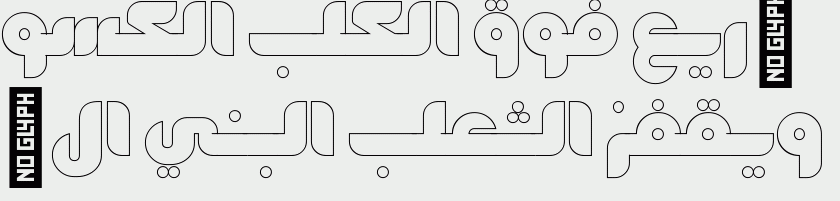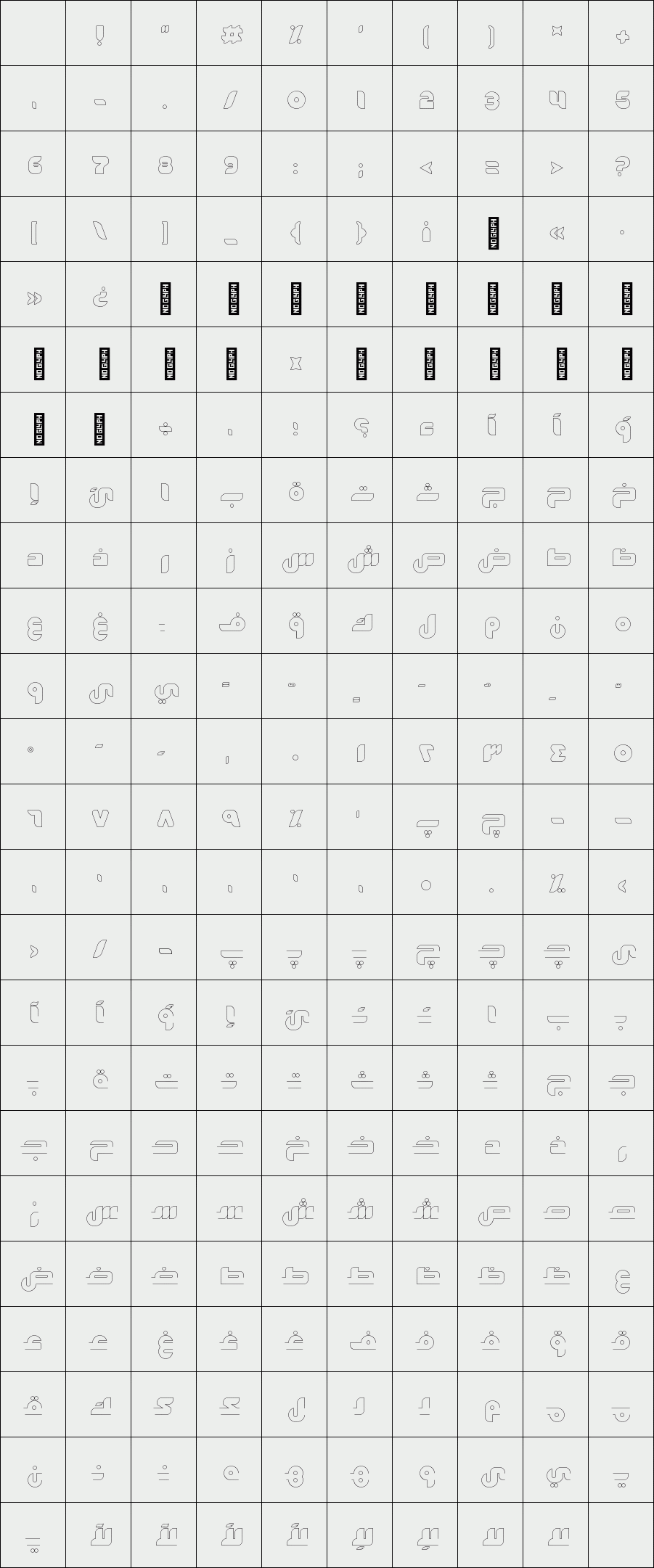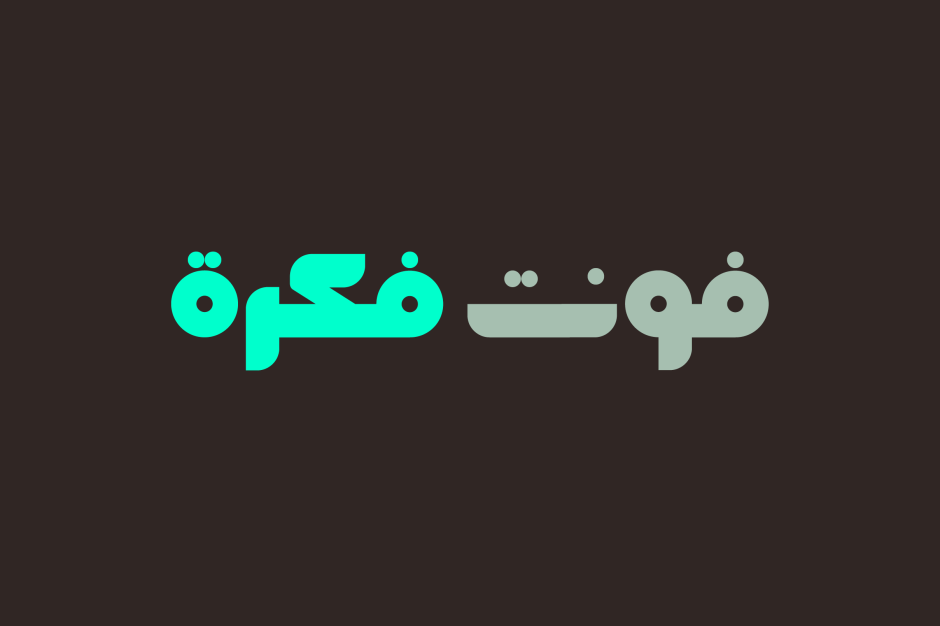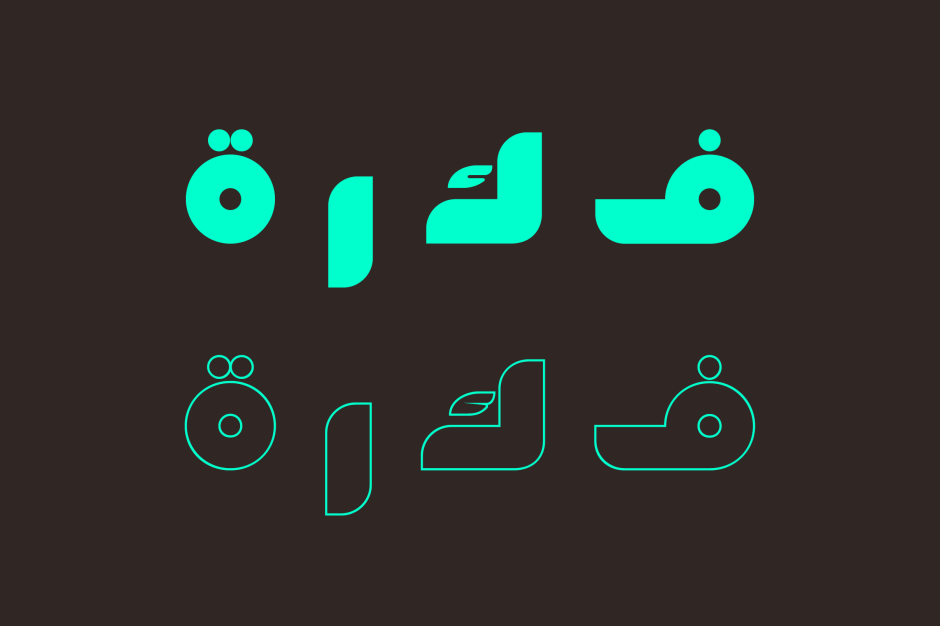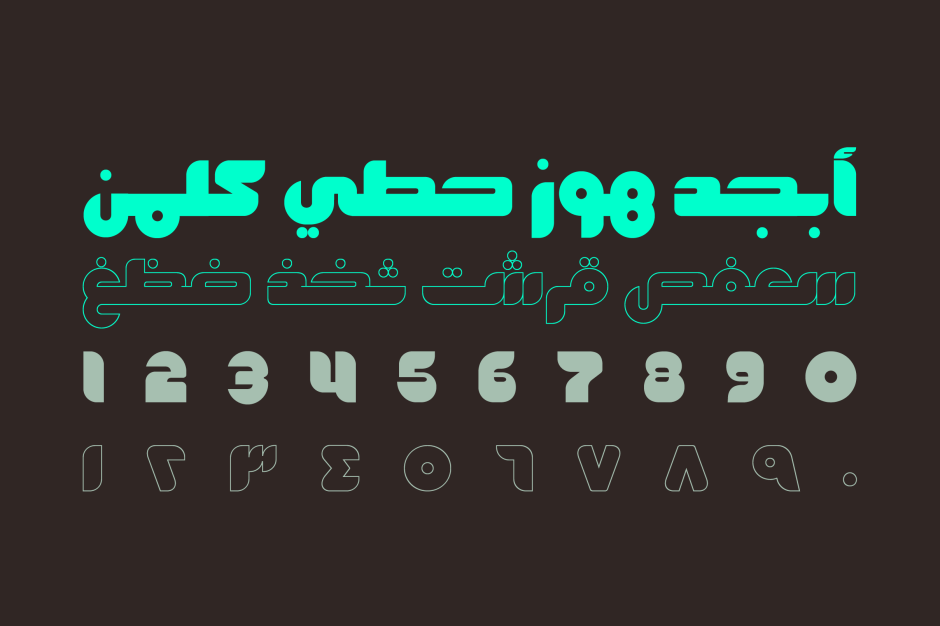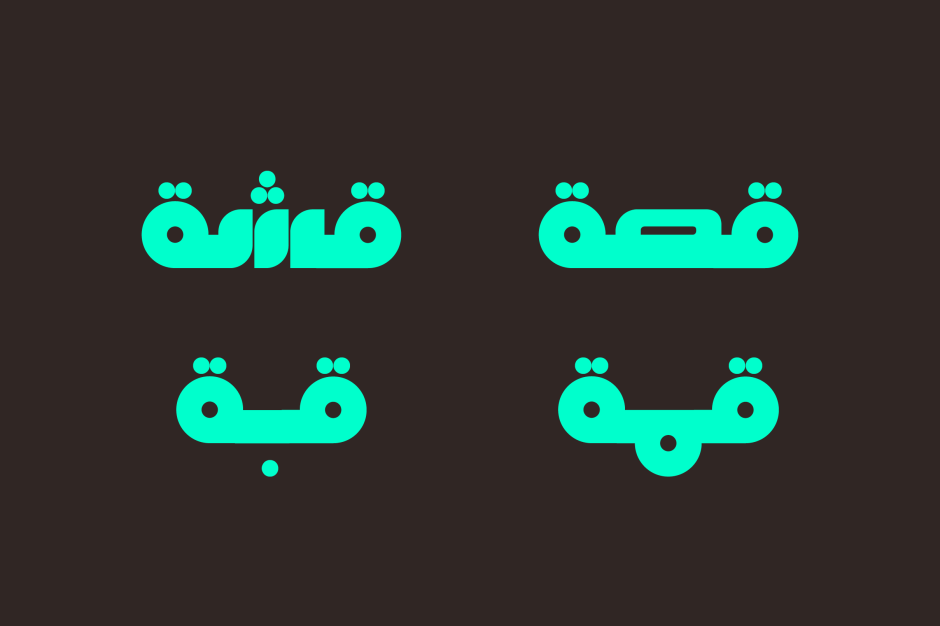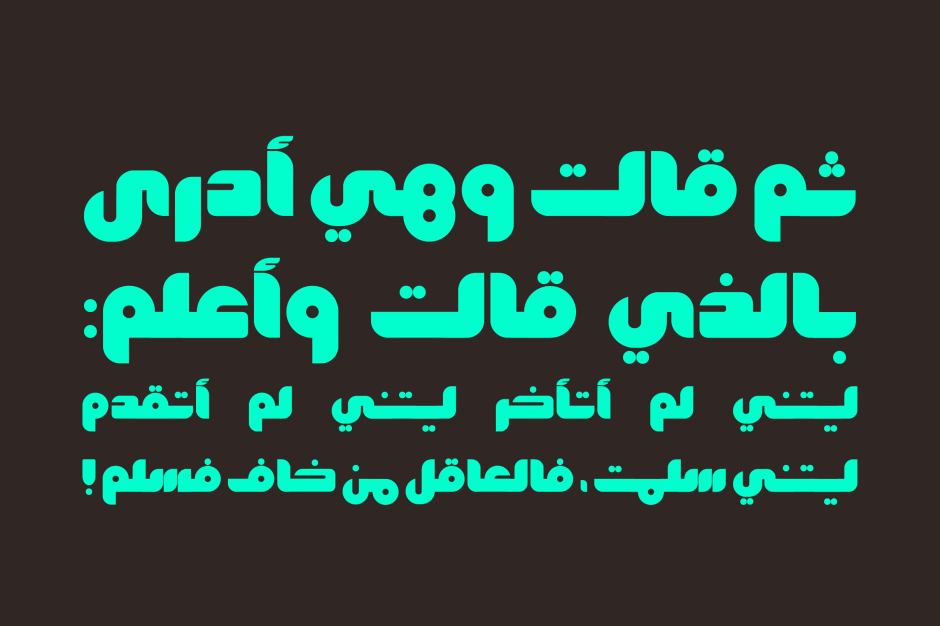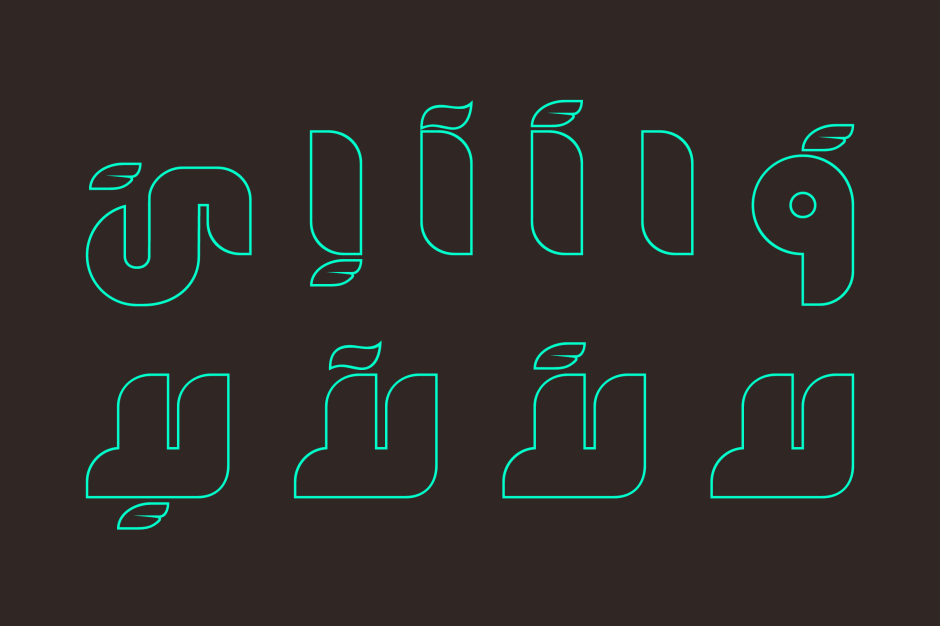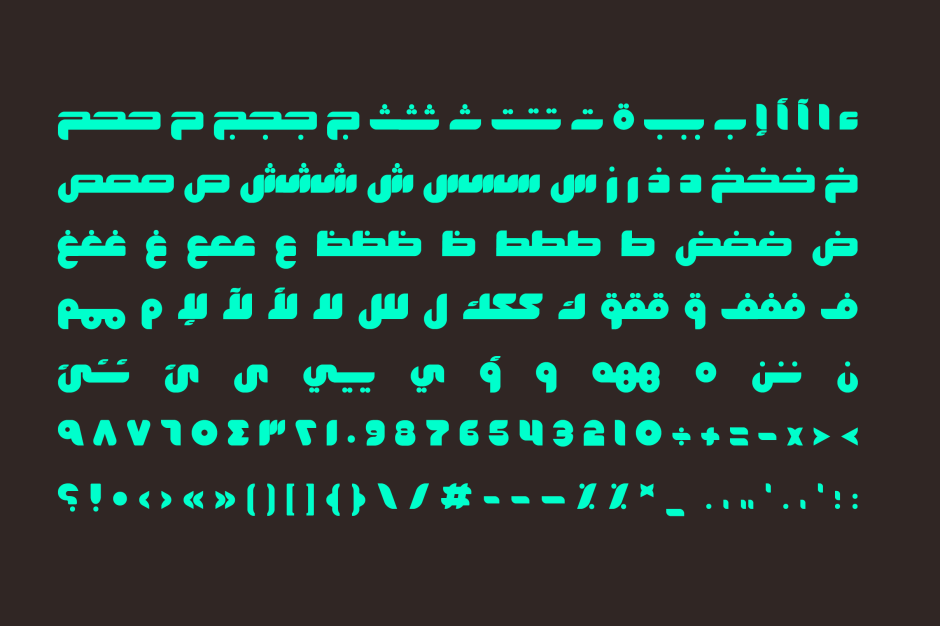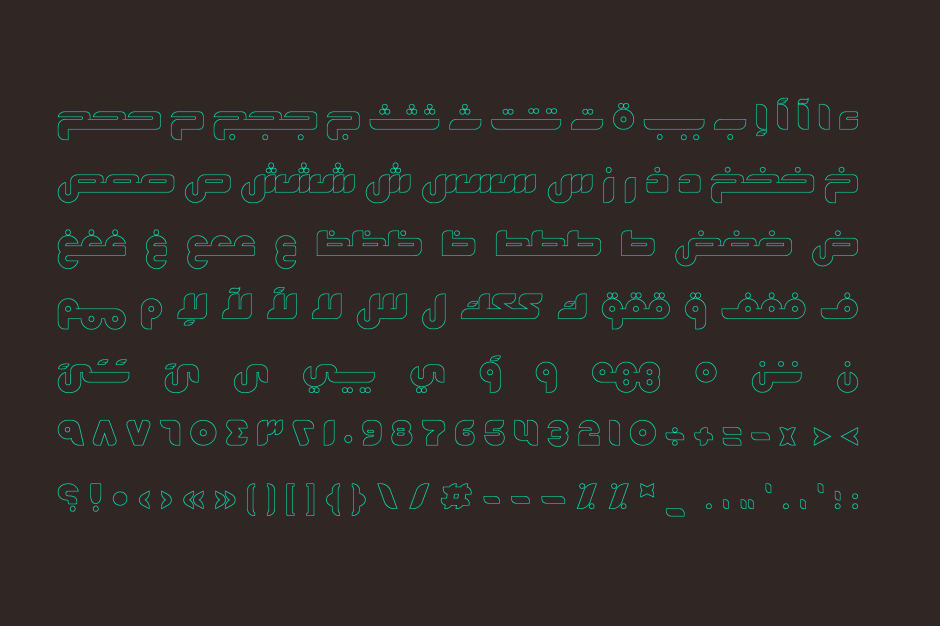
Fekrah
/ Outlined
Translated from Arabic, the word "Fekrah" means Idea. Fekrah is a contemporary Arabic typeface which is mainly designed for attractive identity development, beside logos and other modern design projects. Font is available in opaque and outlined.